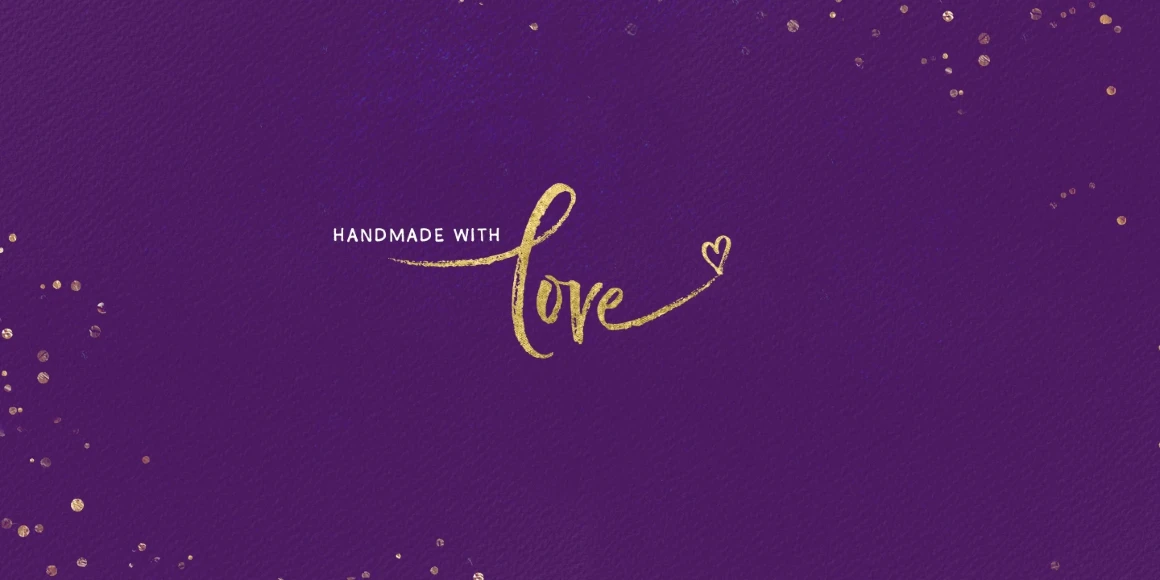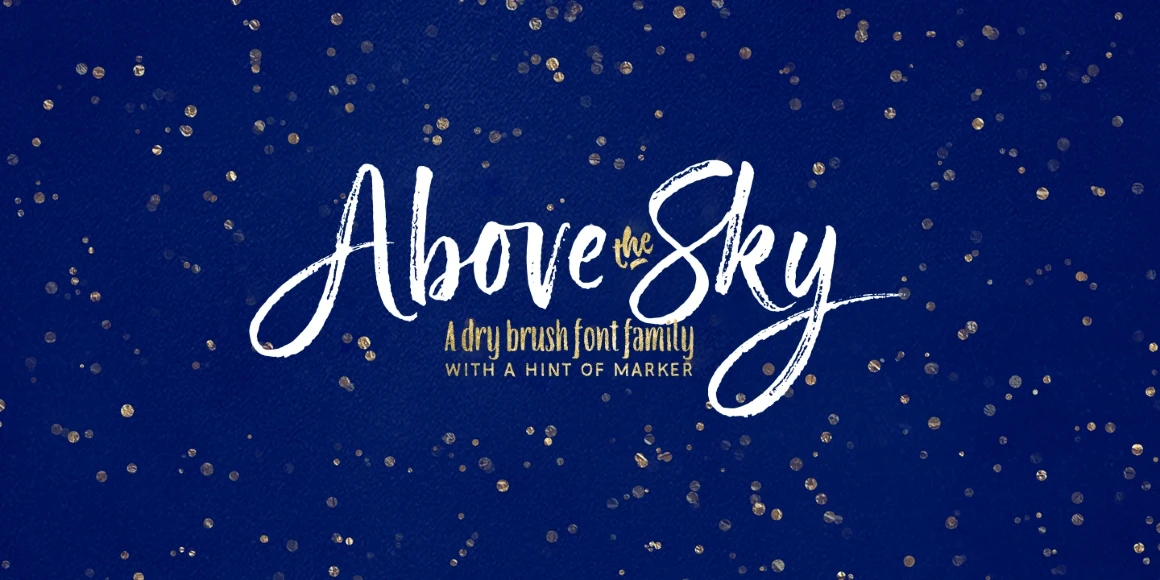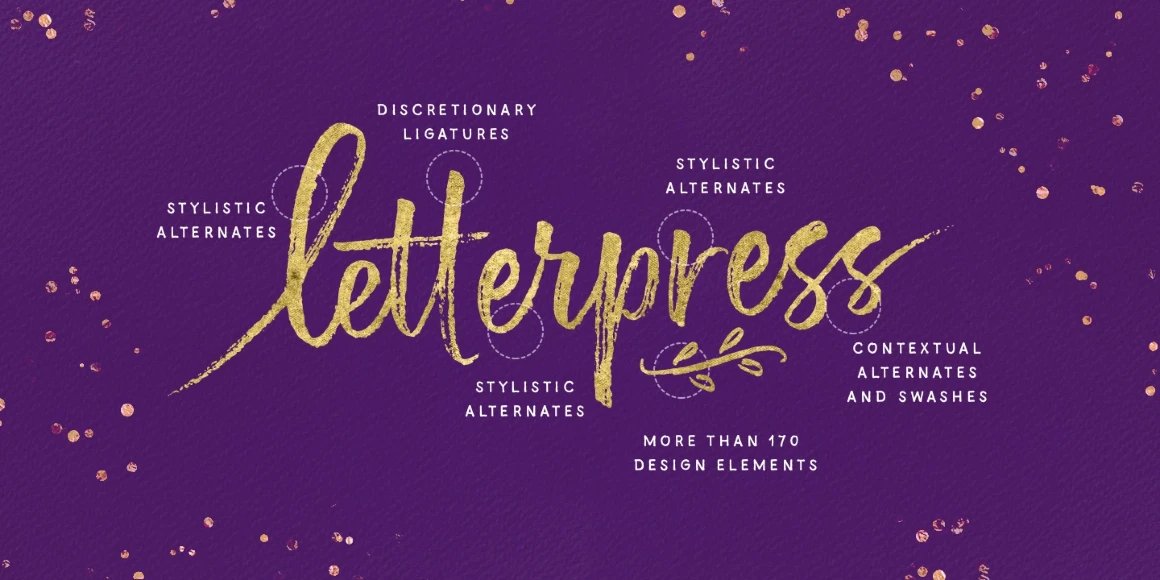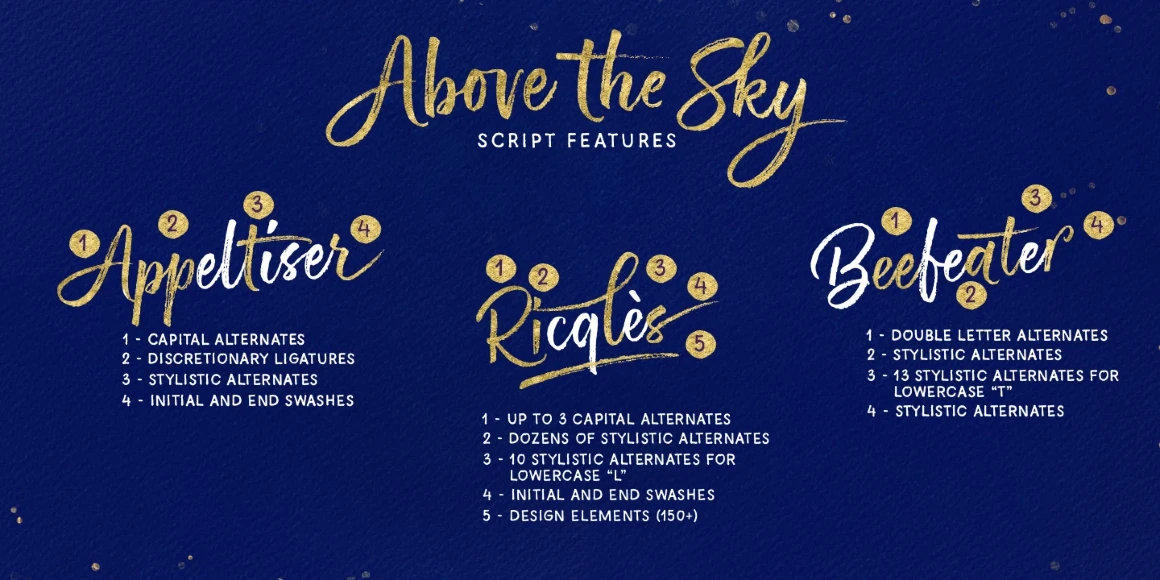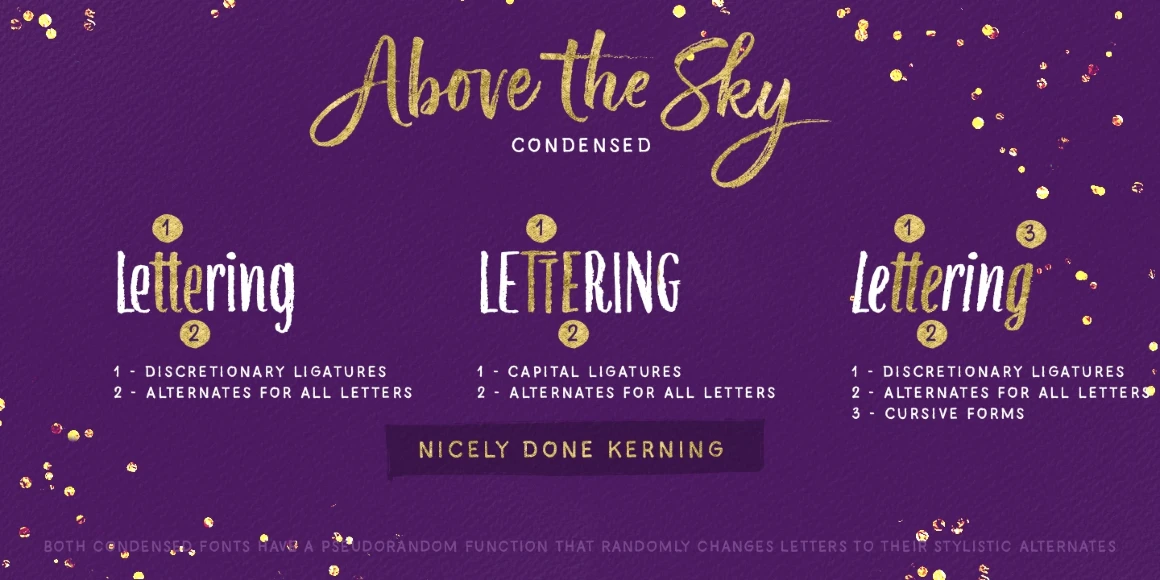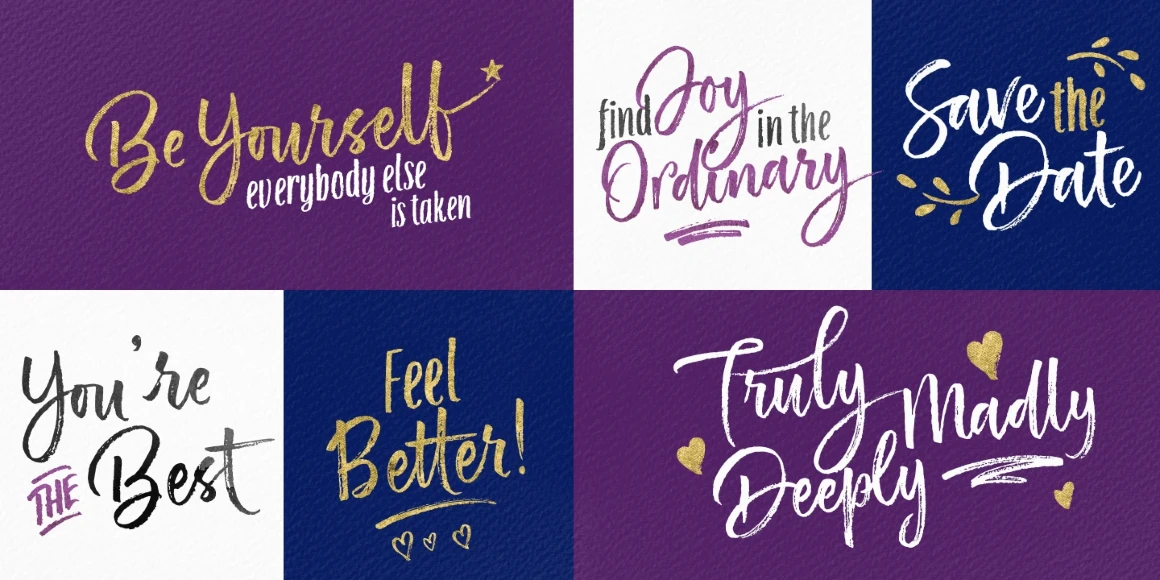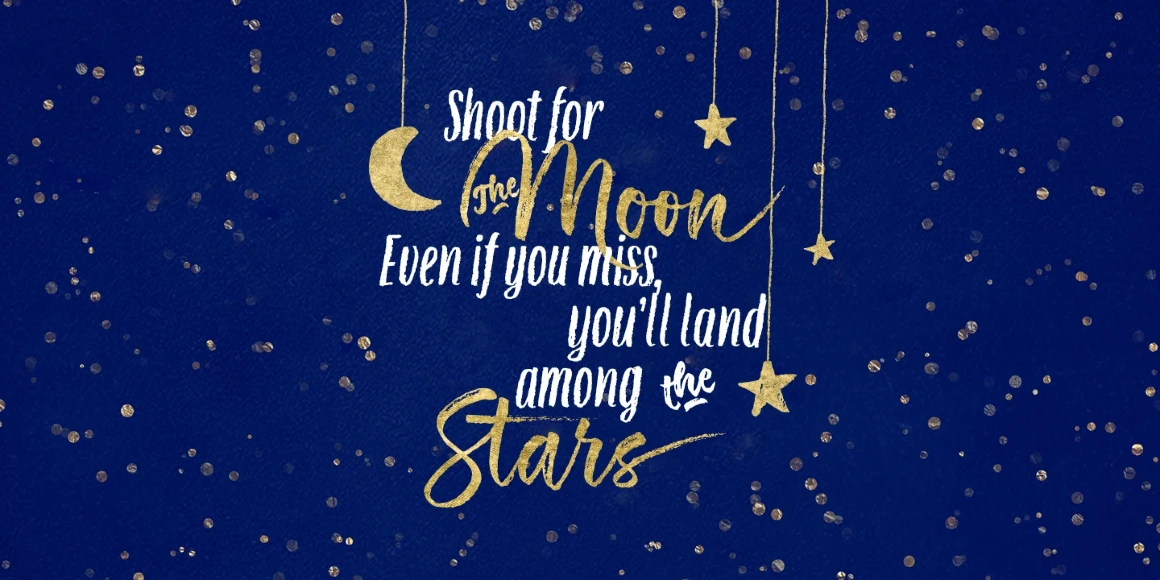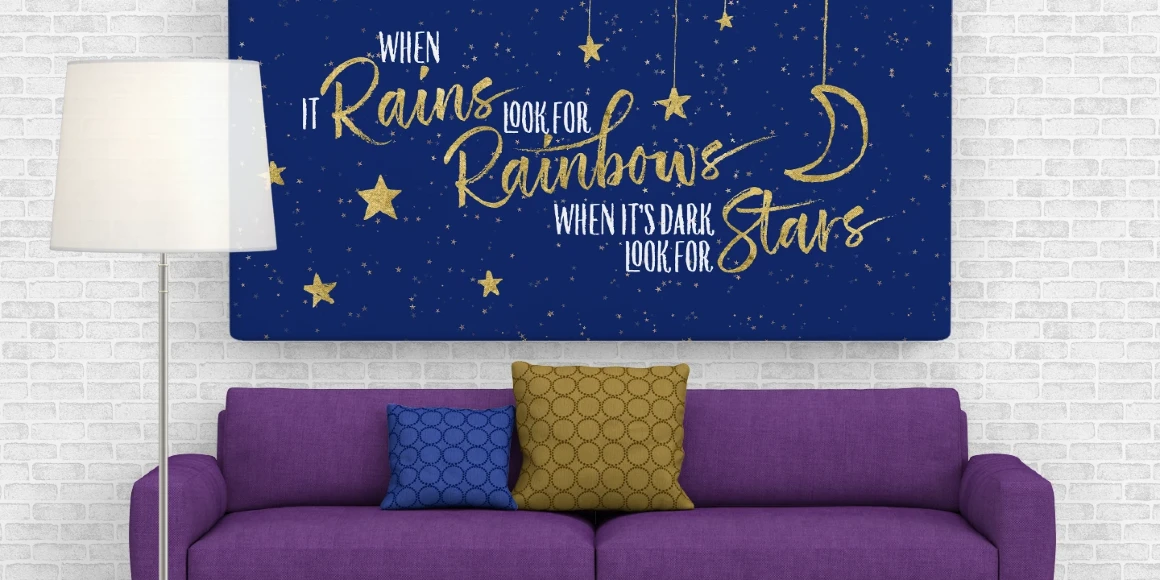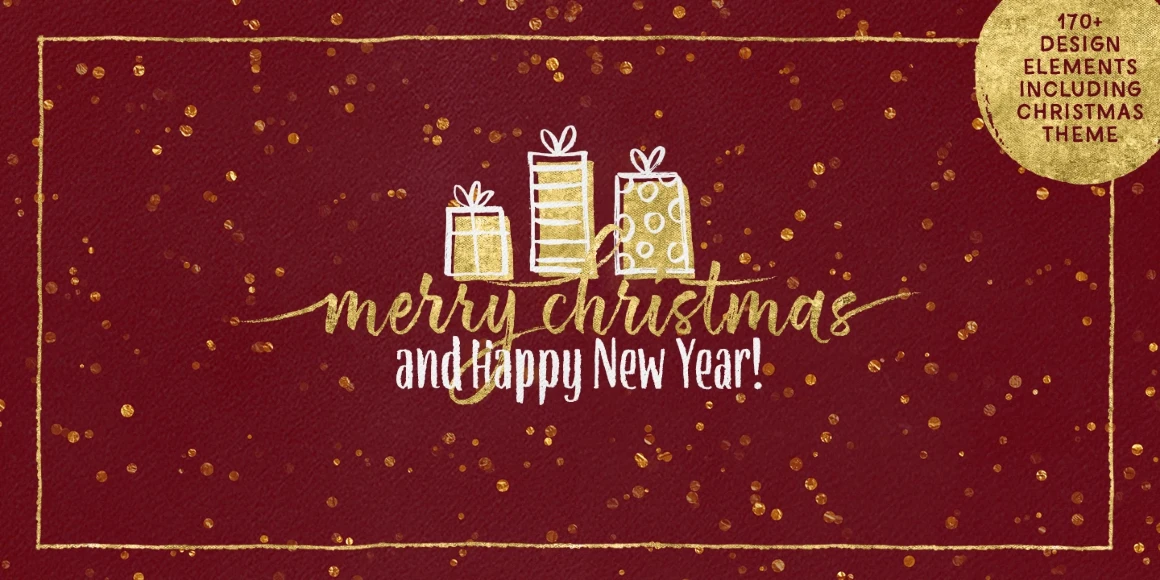
Above The Sky
By Elena Genova
Above The Sky Condensed
Above The Sky Extras
Above The Sky Condensed Cursive
Above the Sky is a family of brush-lettered styles: Script, Condensed, Condensed Cursive, Marker, and Extras! The Script has tons of alternates, ligatures, and swashes to serve you well. The space-saving Condensed and Cursive are both like a casual sans. The useful Marker is perfect for any secondary text you want to include. And don’t forget the Extras! These fonts can be mixed in delightfully dramatic ways, and you’ll be over the moon when you uncover all the possibilities.